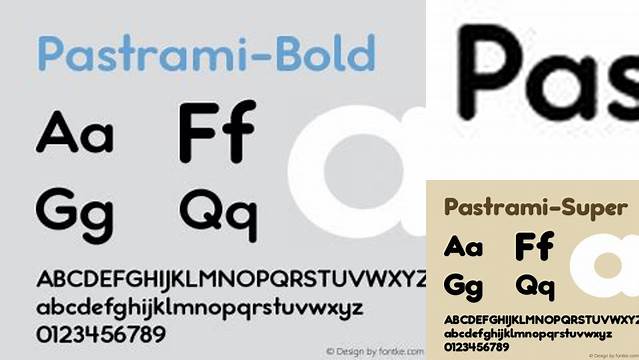
Hey guys! Are you on the hunt for a bold and stylish font to spice up your design projects? Look no further! We’re diving deep into the world of Pastrami Bold, a font that’s been making waves in the design community. This article will cover everything you need to know about Pastrami Bold, including where to snag it for free in TTF format, how to use it effectively, and why it’s such a fantastic choice for a wide range of applications. So, grab your coffee, settle in, and let’s get started!
What is Pastrami Bold Font?
Pastrami Bold is more than just a font; it's a statement. It’s a typeface that commands attention with its strong, confident strokes and distinctive character. The bold weight gives it a robust presence, making it perfect for headlines, posters, branding materials, and anything else where you need your text to stand out. Its design blends a touch of retro charm with a modern sensibility, making it versatile enough to fit into various design styles. When you're thinking about making an impact, consider the visual weight and personality that Pastrami Bold brings to the table. It’s not just about readability; it’s about making a visual impact.
Key Features of Pastrami Bold
When we talk about Pastrami Bold, we're talking about a font that's packed with features that make it a go-to choice for designers. First off, the bold weight itself is a standout, ensuring your text has a strong presence. But beyond that, Pastrami Bold often includes a full character set, meaning you get uppercase and lowercase letters, numbers, punctuation, and even special characters. This makes it incredibly versatile for a wide range of projects. The clean lines and well-defined shapes make it legible even at smaller sizes, while the unique letterforms add a touch of personality. Many versions also include stylistic alternates and ligatures, giving you even more creative options. So, when you're looking for a font that combines boldness with flexibility, Pastrami Bold is definitely worth considering. Think about how these features can elevate your design, making it both impactful and visually appealing.
Why Choose Pastrami Bold for Your Projects?
So, why should you choose Pastrami Bold for your projects? Well, the answer is pretty simple: it’s a powerhouse of visual impact and versatility. This font isn't just about looking good; it's about making a statement. Its bold nature ensures that your message gets noticed, whether you're designing a poster, crafting a website headline, or creating branding materials. Pastrami Bold strikes a balance between retro charm and modern sensibility, meaning it can fit seamlessly into various design styles. It's also highly legible, making it suitable for both large and small text sizes. Plus, with its extensive character set and potential for stylistic alternates, you have plenty of creative control. In short, Pastrami Bold is a fantastic choice when you need a font that's both eye-catching and adaptable. Consider the message you want to convey and how Pastrami Bold can help you achieve that with its unique blend of boldness and style.